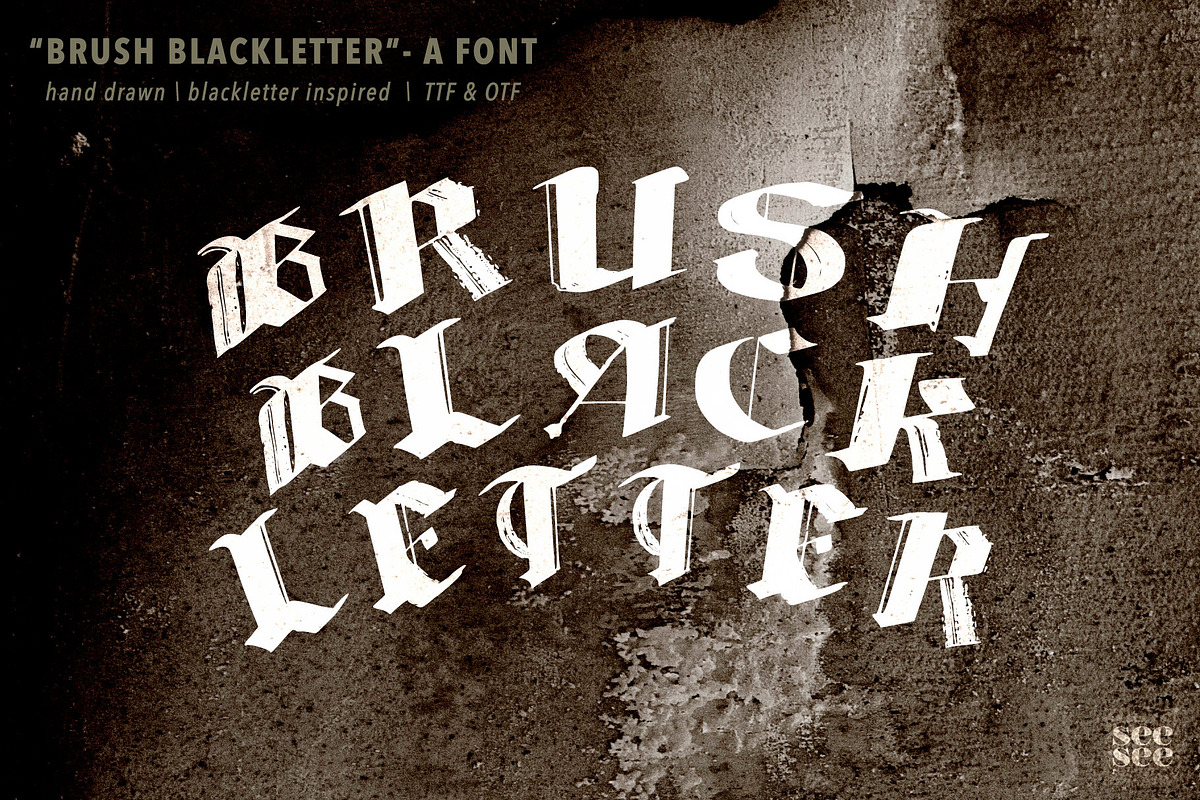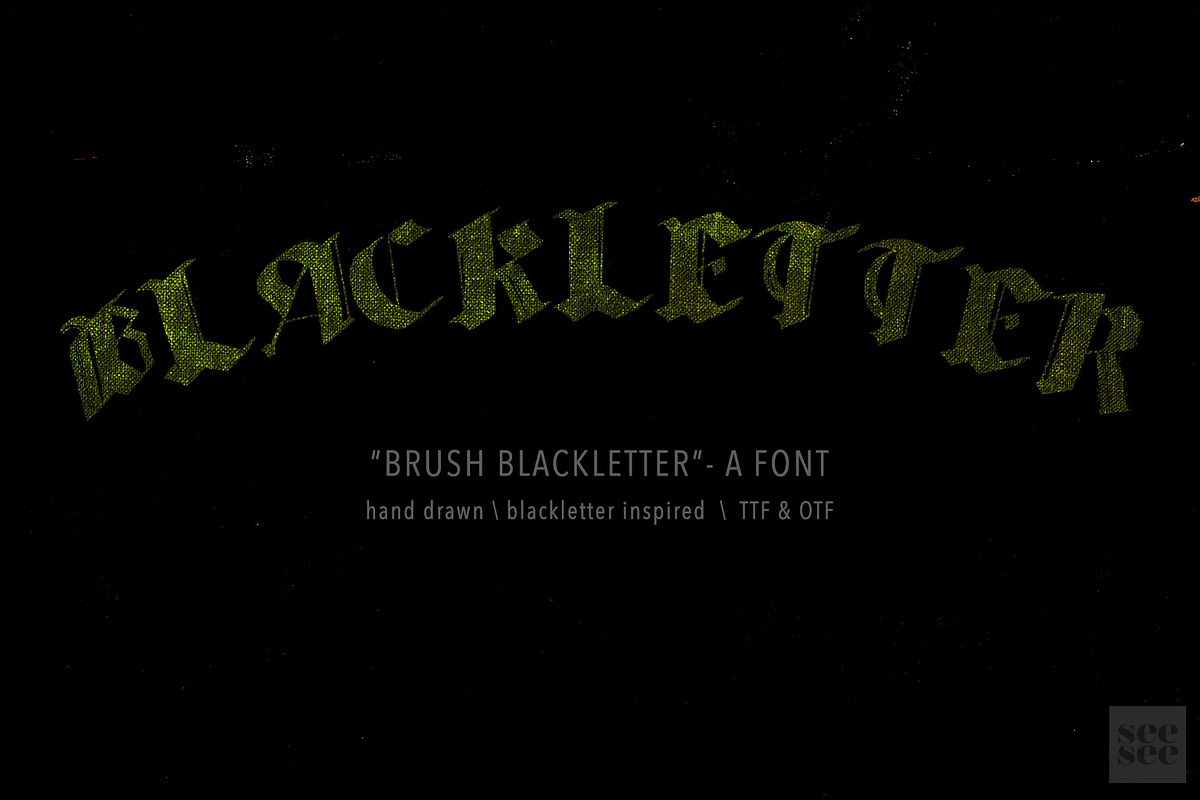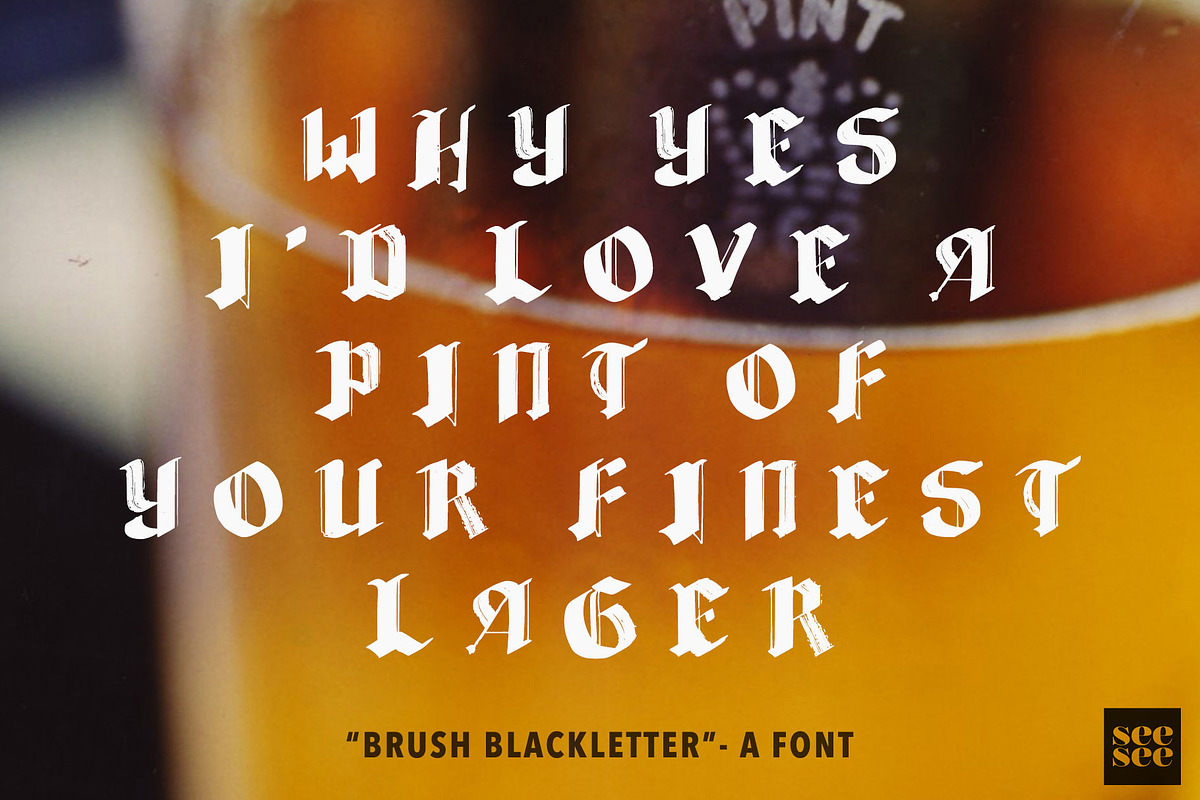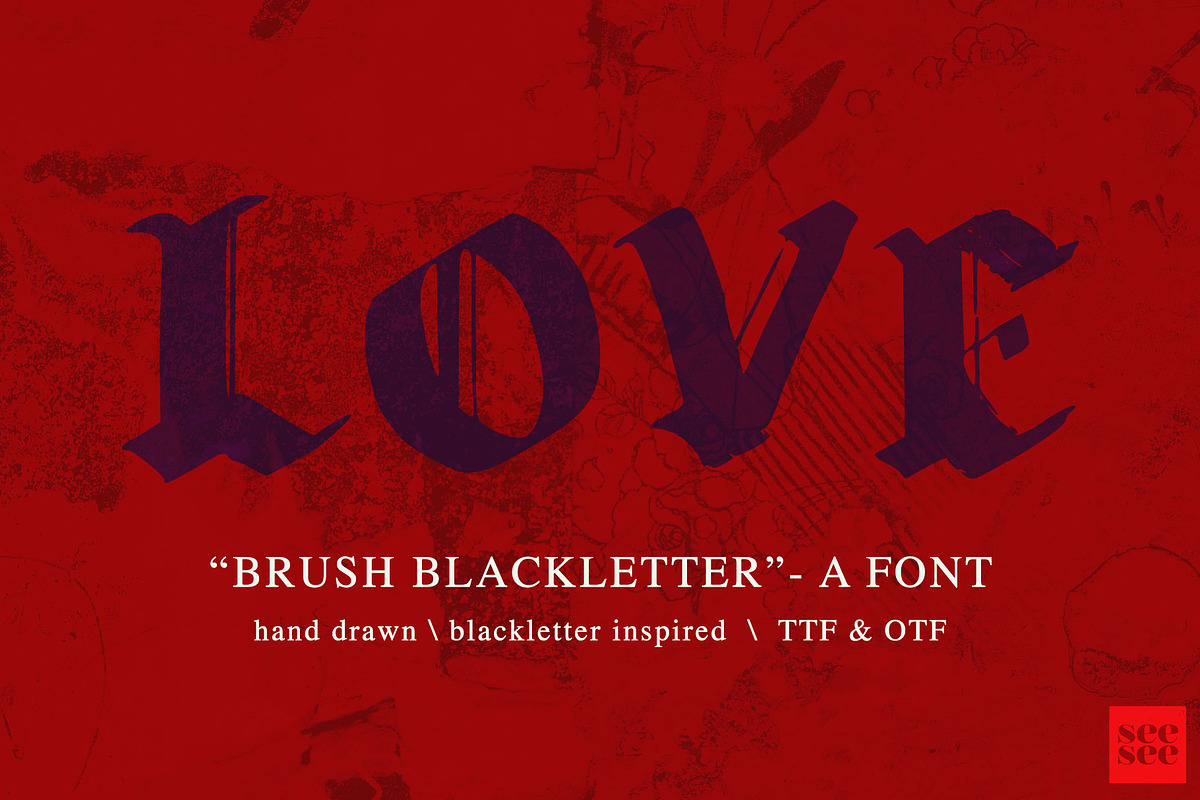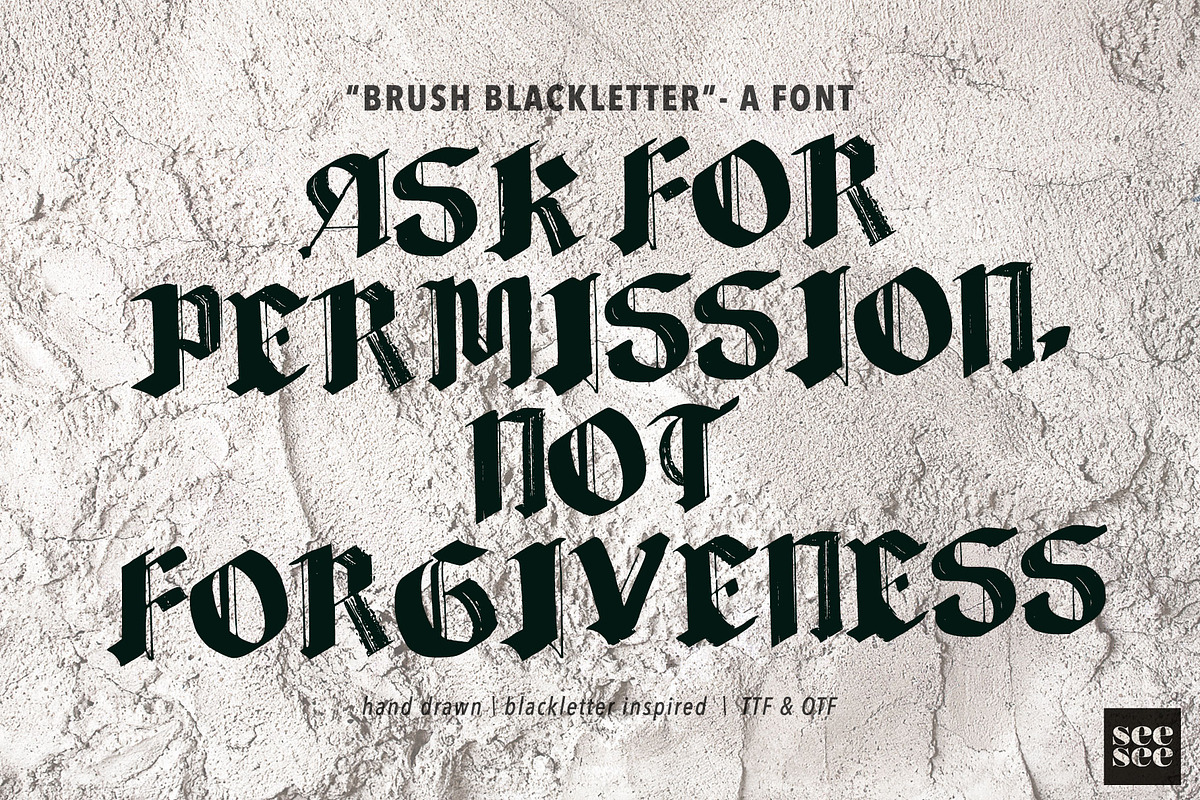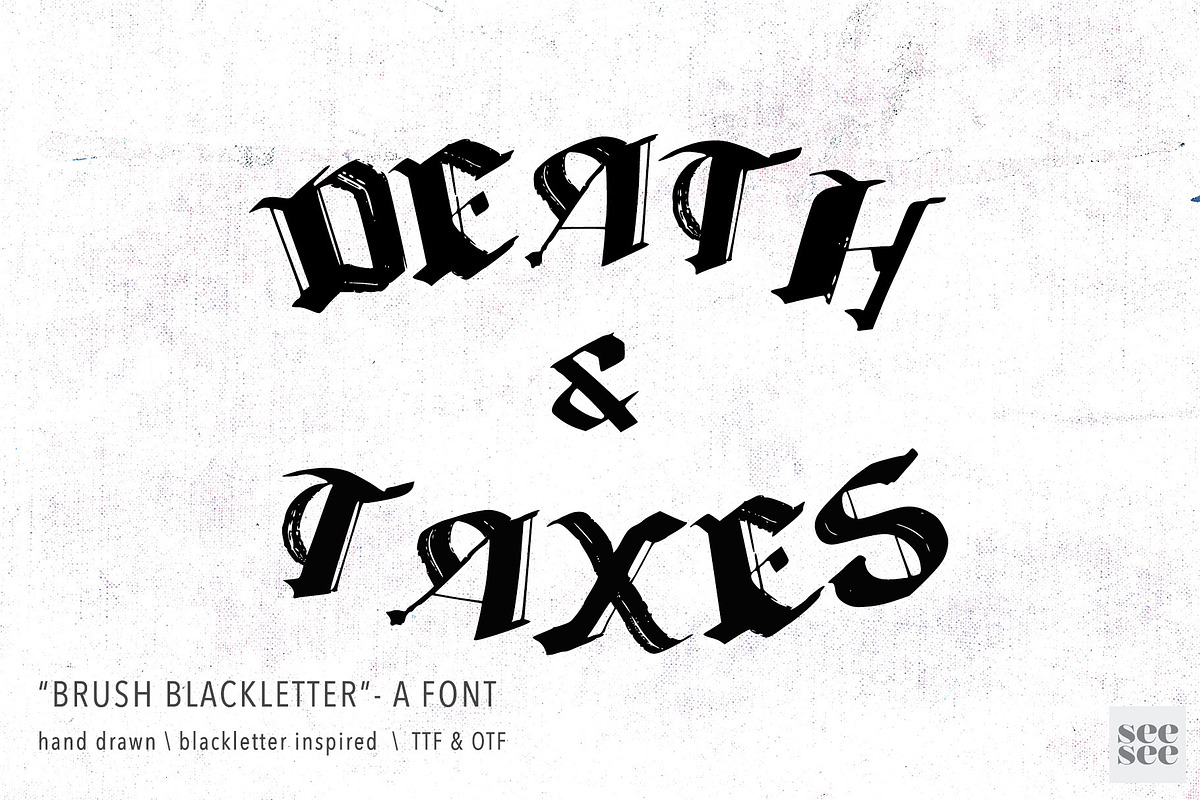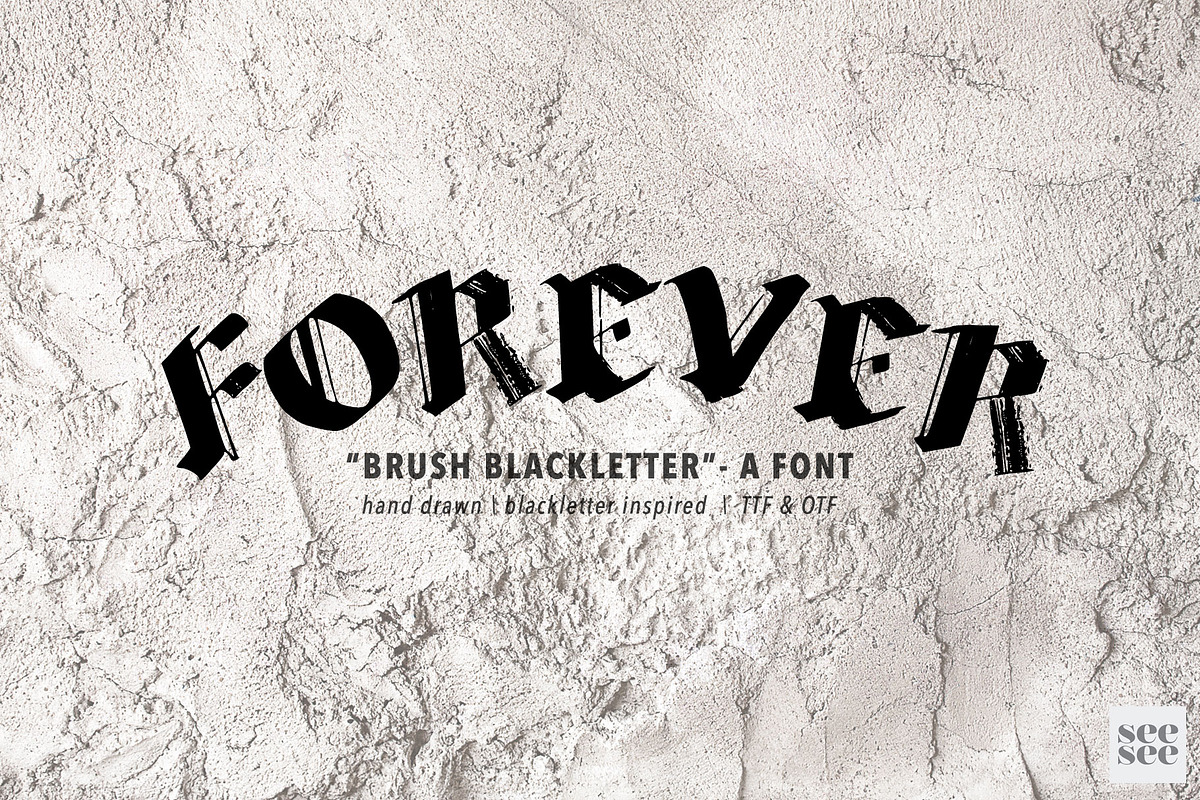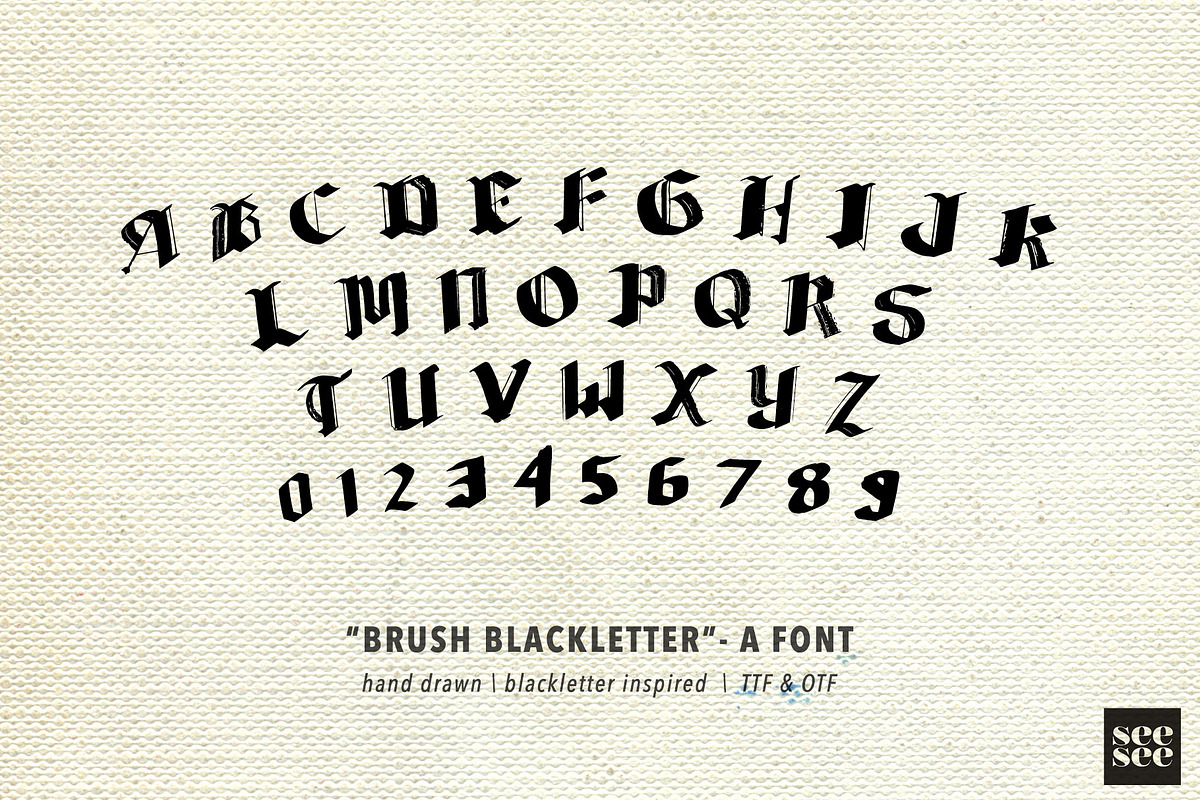
Brush Blackletter - Hand Drawn Font
This hand drawn font is a simplified black letter - casual and semi organic in nature. It is a bit grungy and mostly relaxed but still pays homage to the structure of black letter forms. Basic set only.